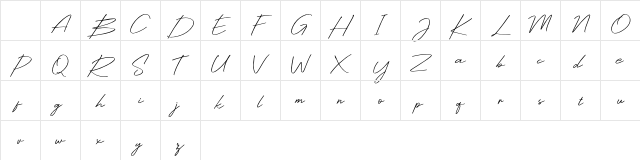
Complete Celine Peach Free Script Regular glyph index. Displaying only characters natively supported by Celine Peach Free Script Regular font.
Celine Peach Free Script flows with the natural rhythm of handwritten lettering, making it ideal for designs that call for warmth and personal expression.
Font Pairing: Combine Celine Peach Free Script with a simple geometric sans for maximum contrast - the tension between flowing curves and clean structure is a classic typographic pairing.
Pro Tip: Use Celine Peach Free Script for short runs of text - names, titles, or taglines. Extended body copy in script faces tires the eye quickly.